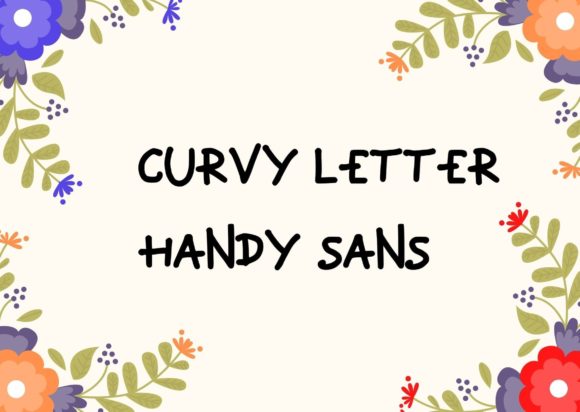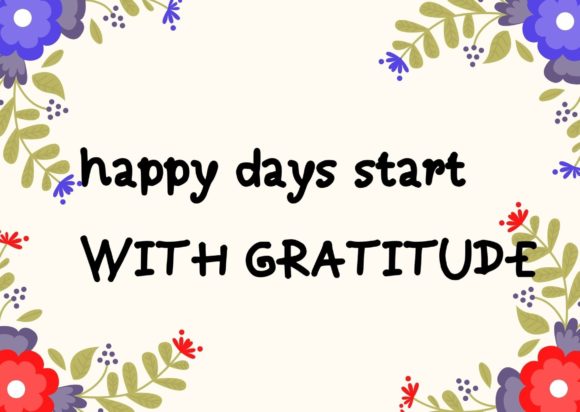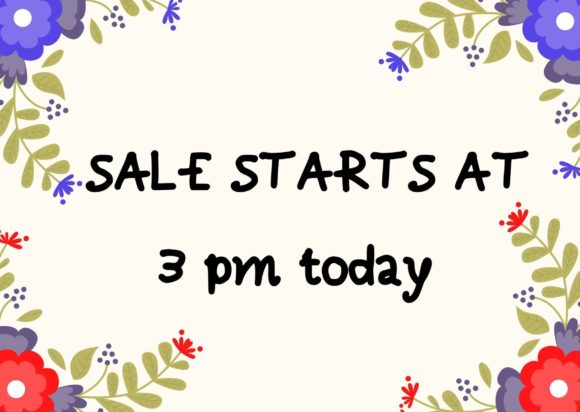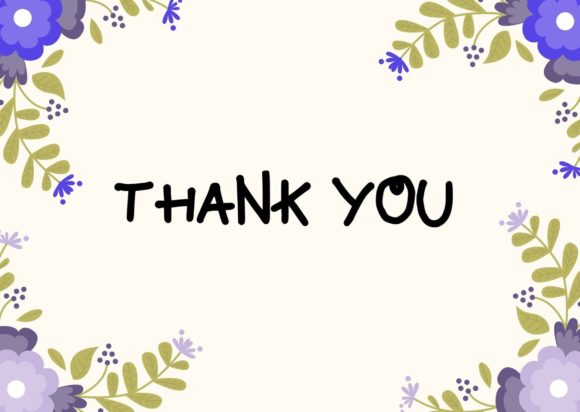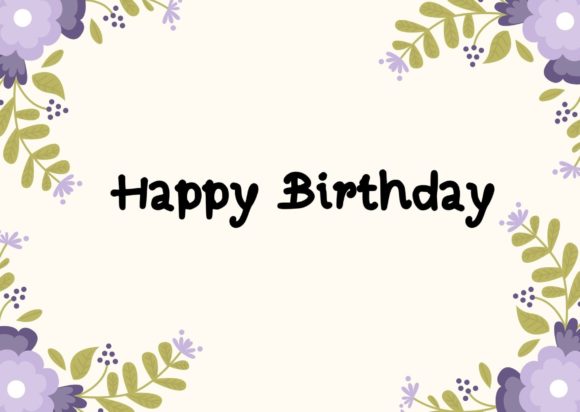
Curvy Letter Handy Sans Font
About Curvy Letter Handy Sans Font
Curvy letter handy sans is a minimal and neat handwritten font. It can easily be matched to an incredibly large set of projects, so add it to your creative ideas and notice how it makes them stand out!